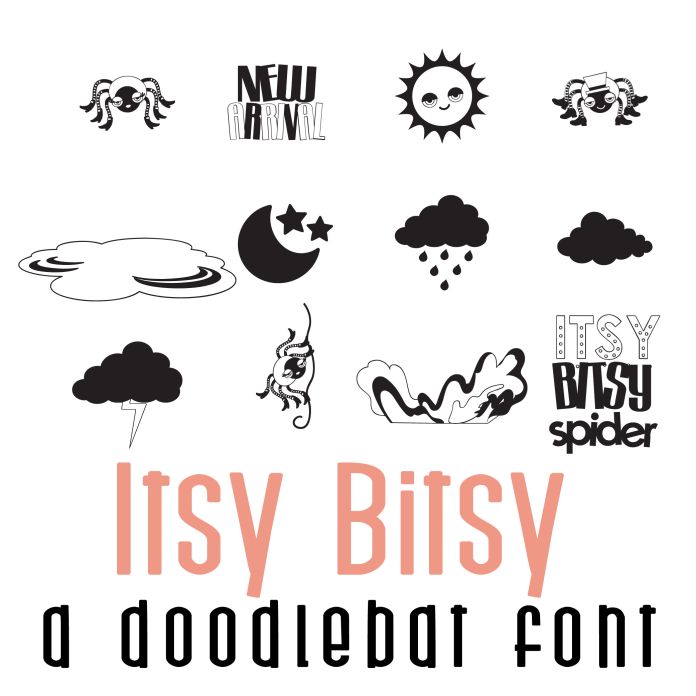
This fun doodlebat font features 26 images from your favorite itsy bitsy nursery rhyme, perfect for cards, crafts, gifts, decor, scrapbook pages, planner stickers, and more!